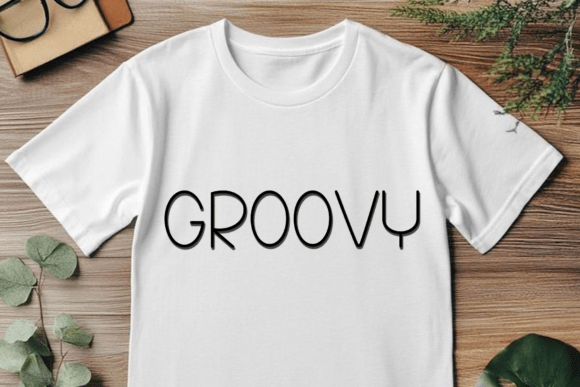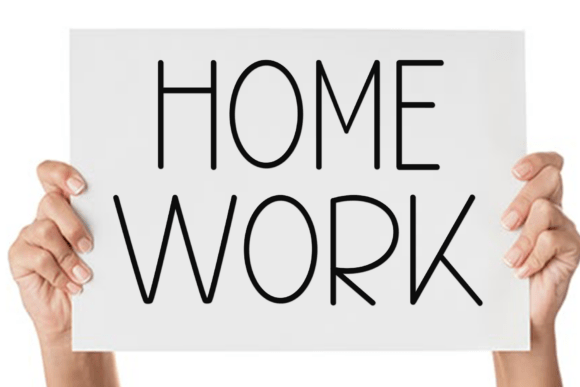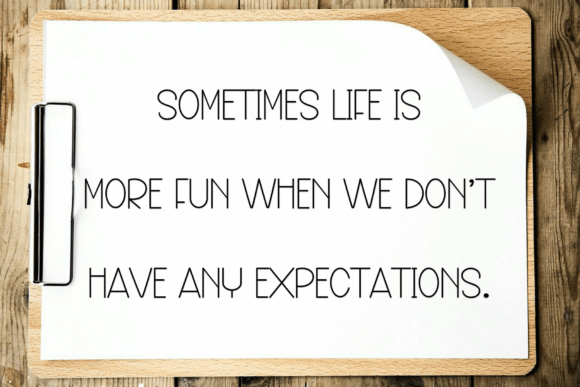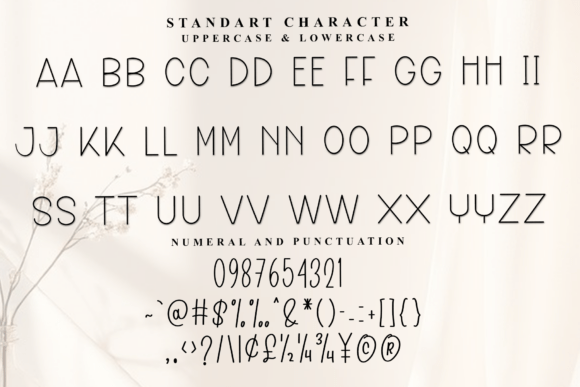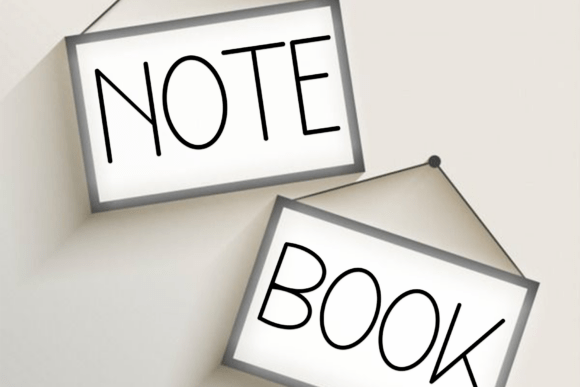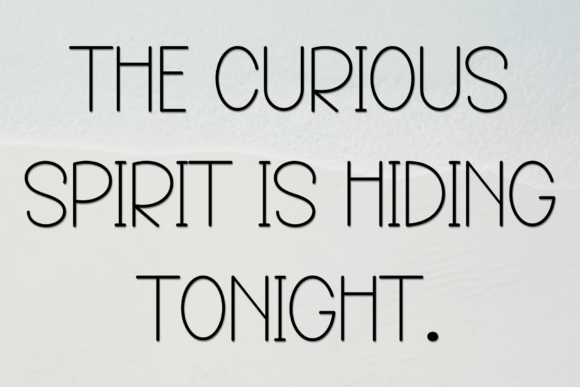
Introducing Choconut Font: The Perfect Blend of Casual and Creative
Are you tired of using the same old fonts for your personal projects, invitations, and social media graphics? Look no further than Choconut Font, a casual and creative typeface that exudes warmth and friendliness. With its round, playful strokes, Choconut creates a relaxed and approachable feel that’s perfect for designers and crafters looking to add a personal touch to their work.
The Charm of Choconut Font
Choconut Font boasts a charming, hand-drawn aesthetic that’s sure to capture the attention of your audience. Its unique and fun design makes it an excellent choice for a wide range of applications, from DIY craft projects to social media graphics. Whether you’re a seasoned designer or a crafty hobbyist, Choconut Font is sure to inspire your creativity and add a touch of personality to your work.
Key Features of Choconut Font
- Casual and Creative: Choconut Font is designed to be casual and creative, making it perfect for personal projects and social media graphics.
- Warm and Friendly: The font’s round, playful strokes create a warm and friendly feel that’s sure to resonate with your audience.
- Hand-Drawn Aesthetic: The font’s charming, hand-drawn design adds a fun and unique touch to any project.
Choconut Font is an excellent choice for designers and crafters looking to add a personal touch to their work. Whether you’re creating social media graphics, invitations, or DIY craft projects, this font is sure to inspire your creativity and help you stand out from the crowd. With Choconut Font, you can:
- Create eye-catching social media graphics that showcase your personality and style.
- Design unique and personalized invitations for special occasions.
- Add a touch of whimsy and fun to your DIY craft projects.
Tips for Using Choconut Font
To get the most out of Choconut Font, here are a few tips to keep in mind:
- Use it sparingly: While Choconut Font is perfect for headings and titles, it can be overwhelming if used excessively. Use it sparingly to create a balanced design.
- Experiment with colors: Choconut Font looks great in a variety of colors, so don’t be afraid to experiment and find the perfect hue for your project.
- Pair it with other fonts: Choconut Font pairs well with other fonts, so try combining it with a sans-serif font for a unique and interesting design.